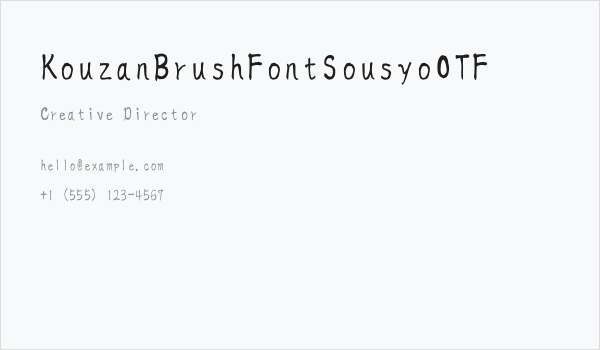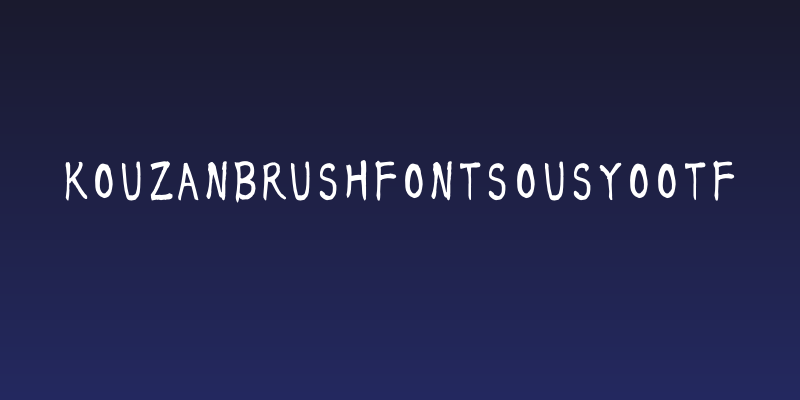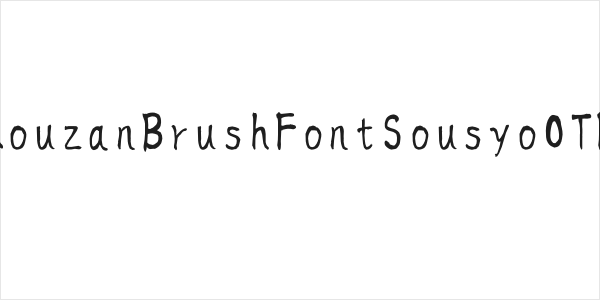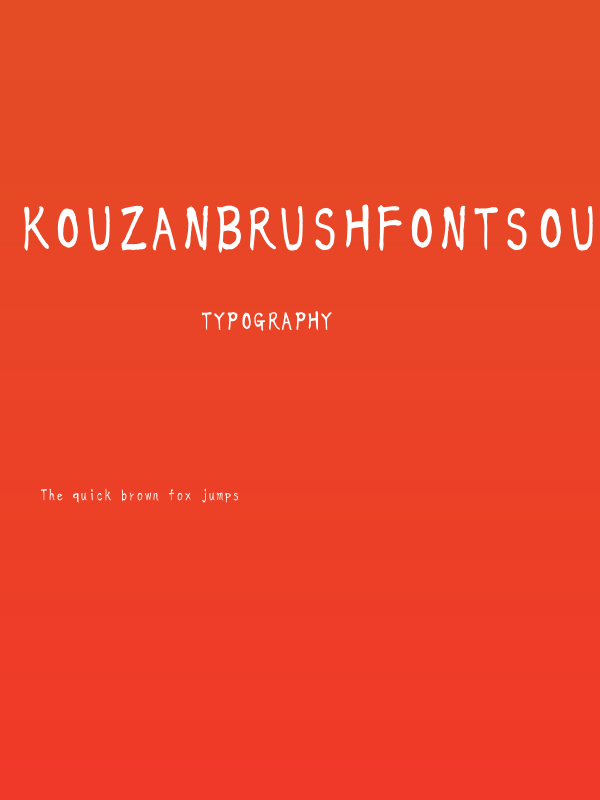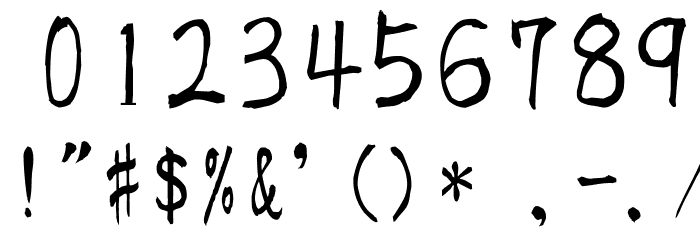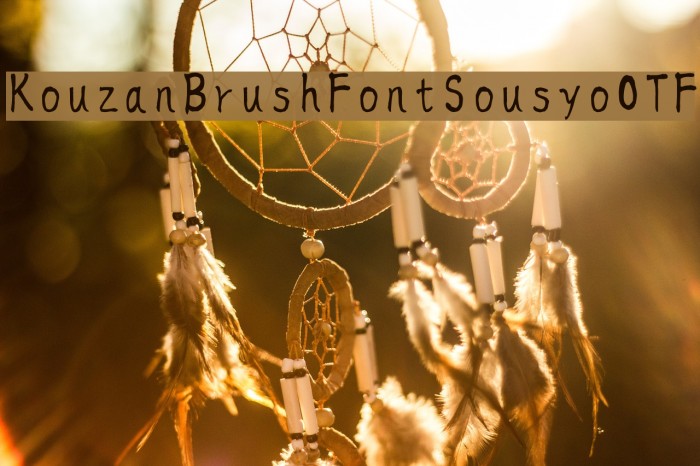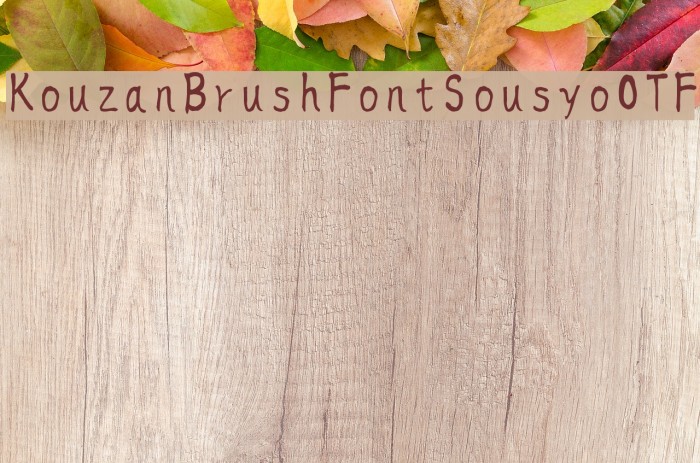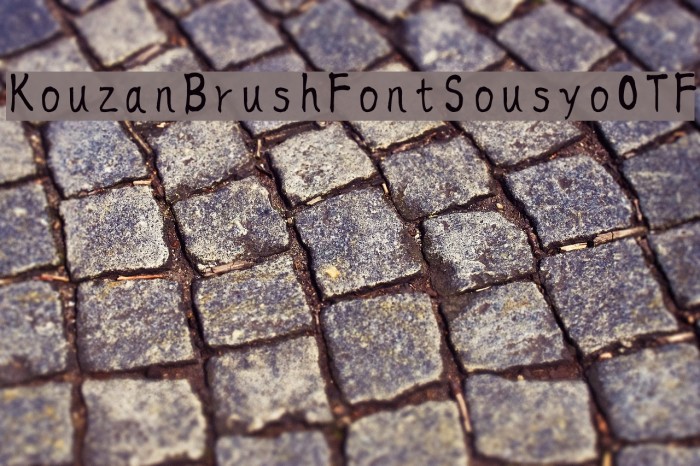
KouzanBrushFontSousyoOTF Font
KouzanBrushFontSousyoOTF Description
This font exudes a dynamic and artistic flair, characterized by its brush-like strokes that convey a sense of movement and fluidity. The letters are crafted with an irregular, hand-drawn appearance, giving it a unique and personal touch. The uppercase and lowercase letters maintain a consistent style, with varying stroke thickness that adds to its expressive nature. Numbers and special characters follow the same aesthetic, ensuring a cohesive look across all text elements. The font's organic and slightly rugged edges contribute to its authentic, handcrafted feel.
| Overall Style | Artistic |
| Use Case | Logos, Headlines, Creative projects |
| Proposed Projects | Ideal for creative projects such as posters, invitations, branding, and artistic designs where a personal touch is desired. |